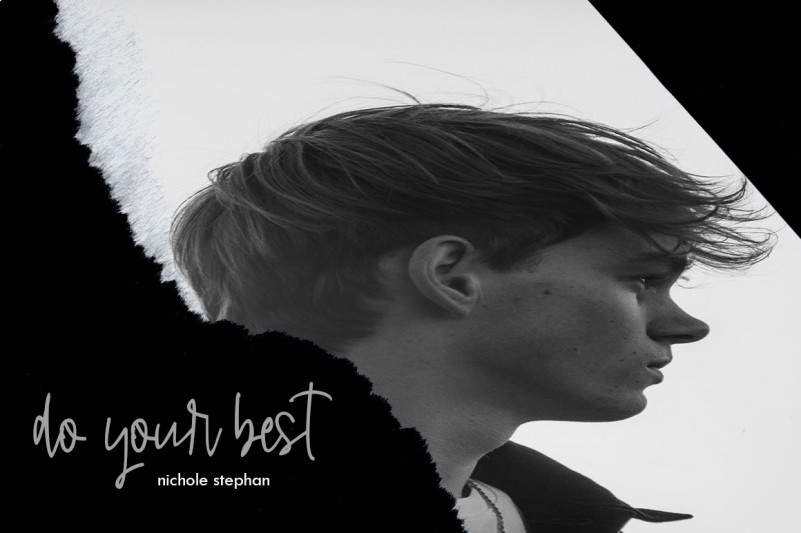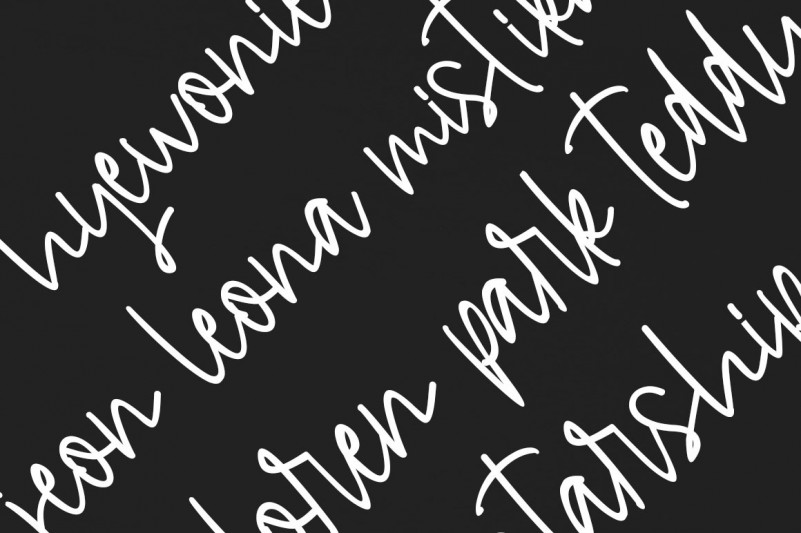
Amsterdam Billionaire Script Font
Amsterdam Billionaire – Modern Signature Font, from Perspectype Studio, is a premium signature font, suitable for any projects such as: logos, branding projects, homeware designs, product packaging, mugs, quotes, posters, shopping bags, t-shirts, book covers, name card, invitation cards, greeting cards, label, photography, watermark, special events, and all your other luxury projects that need a premium signature taste.